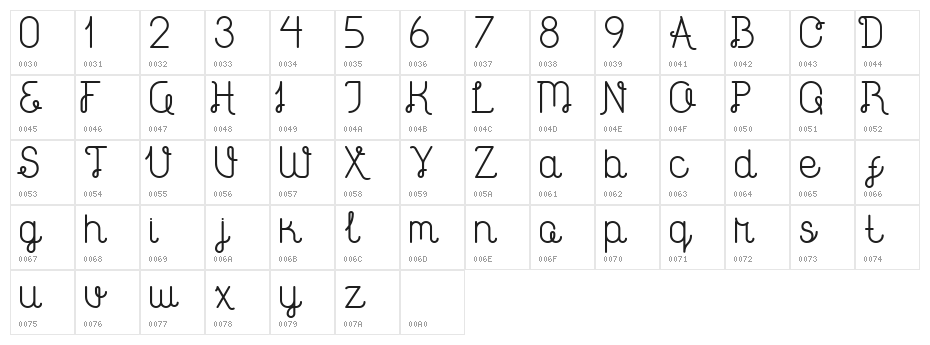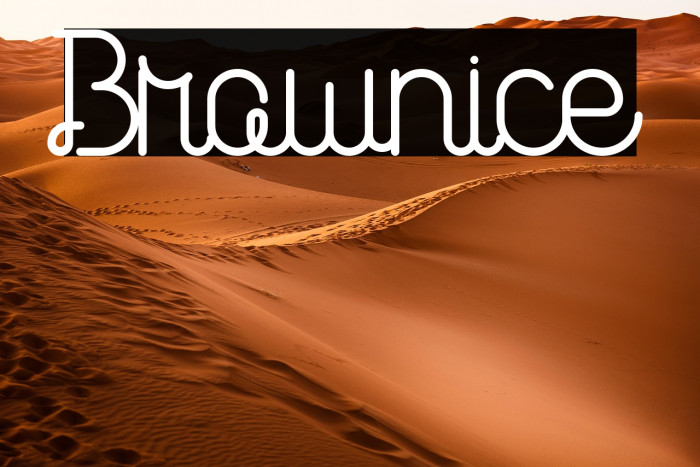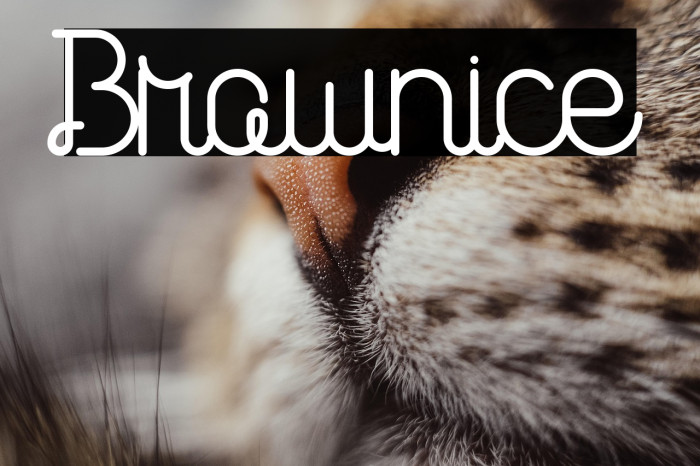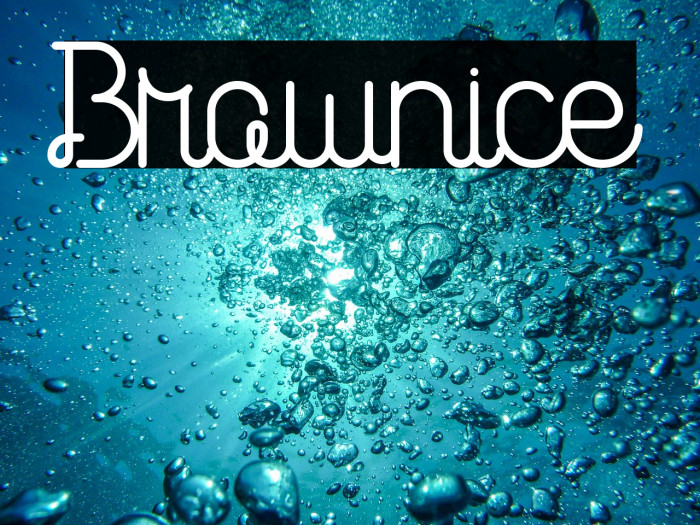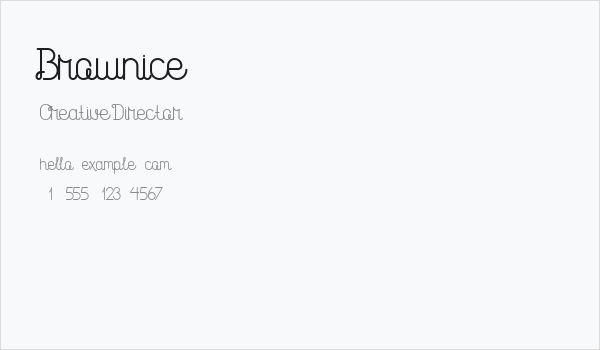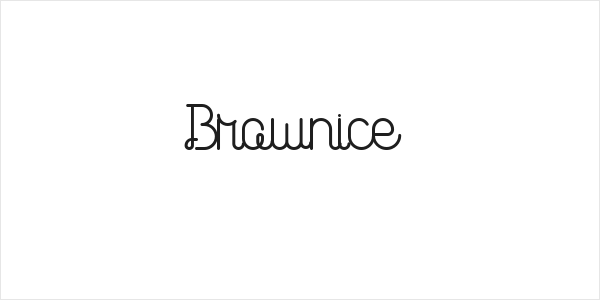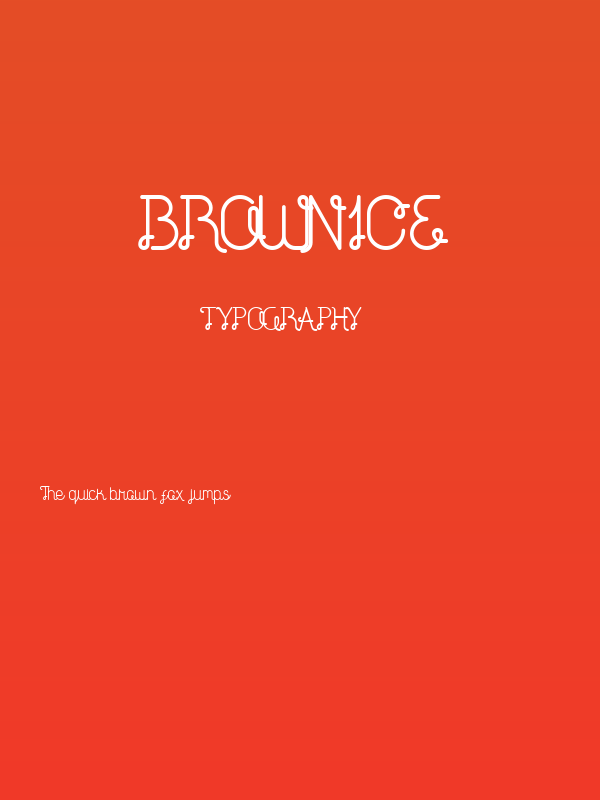
Brownice Font
Brownice Description
This font features a unique and playful design with a decorative flair. Each character is crafted with a looped, swirling element that adds a whimsical touch to the overall appearance. The lines are consistent in thickness, providing a uniform look across all characters. The uppercase and lowercase letters maintain a cohesive style, while the numerals and special characters integrate seamlessly. This font's distinctive style makes it stand out, offering a creative and artistic vibe suitable for various design projects.
| Proposed Projects | Ideal for creative projects such as invitations, greeting cards, children's books, and playful branding. |